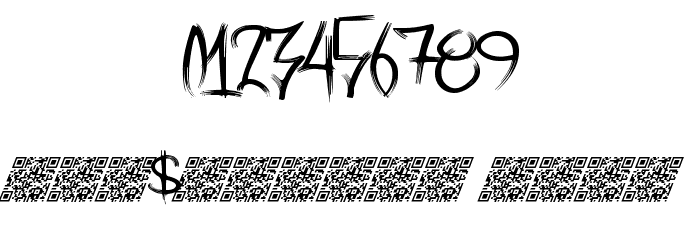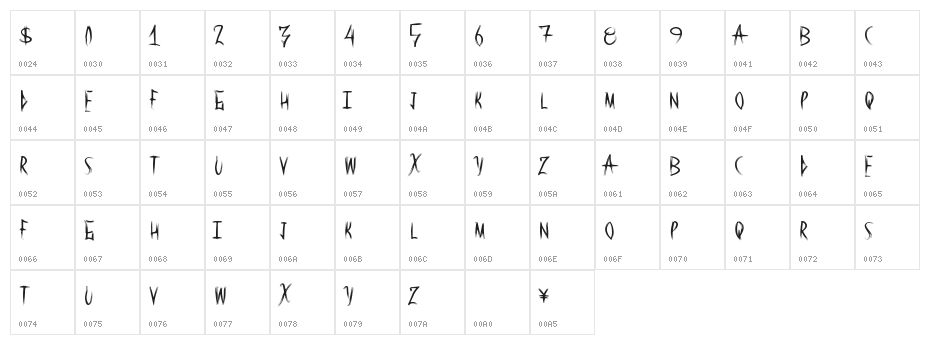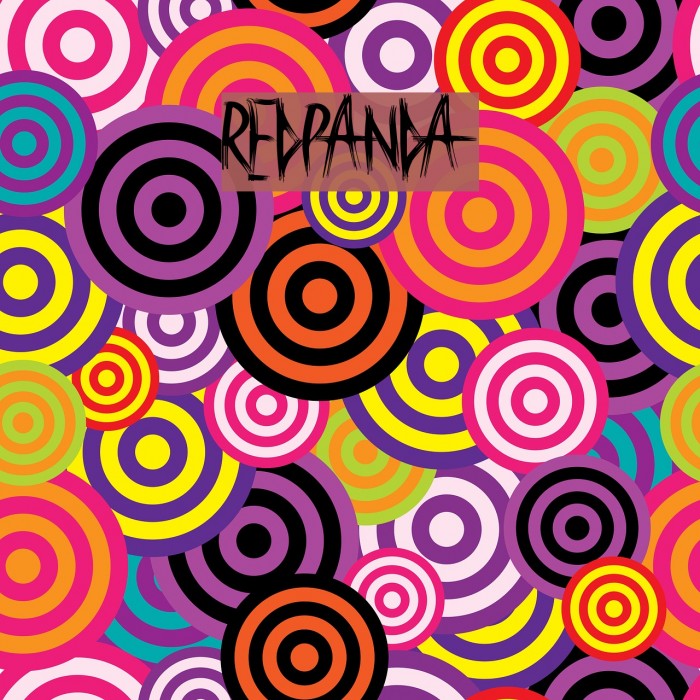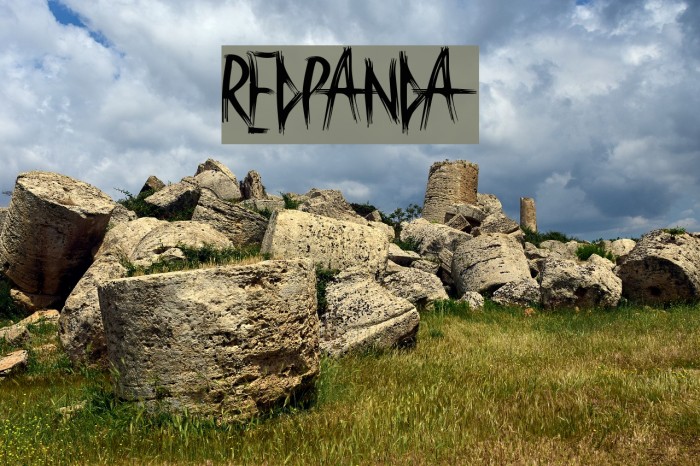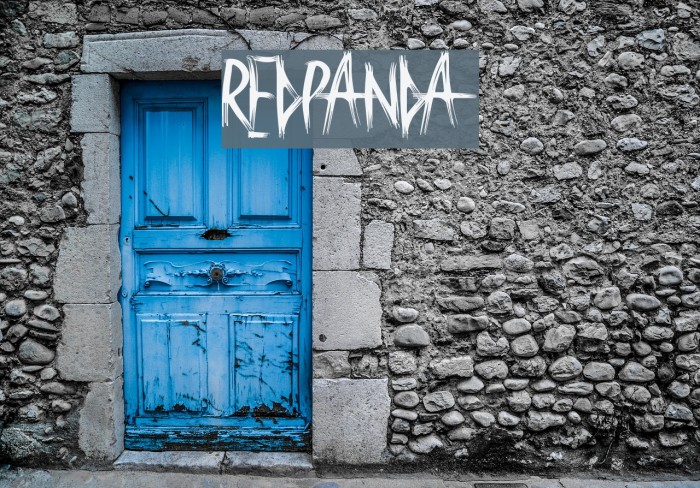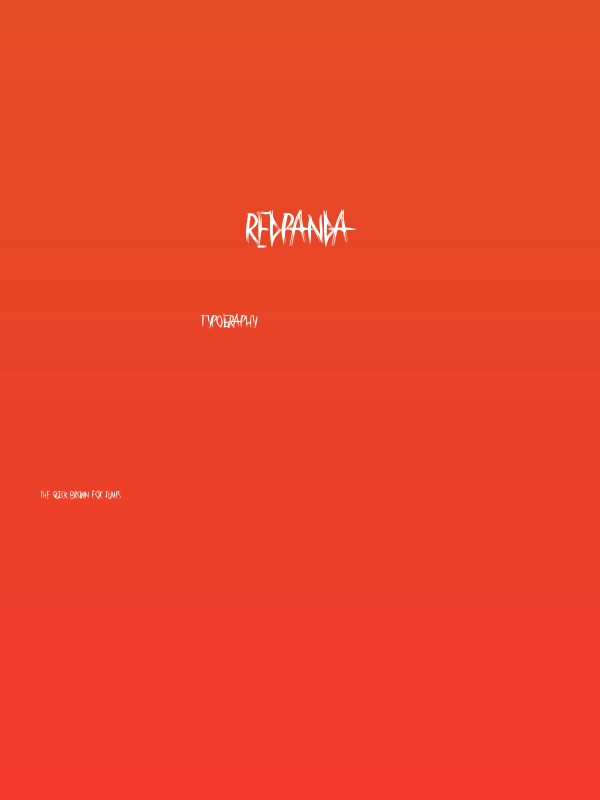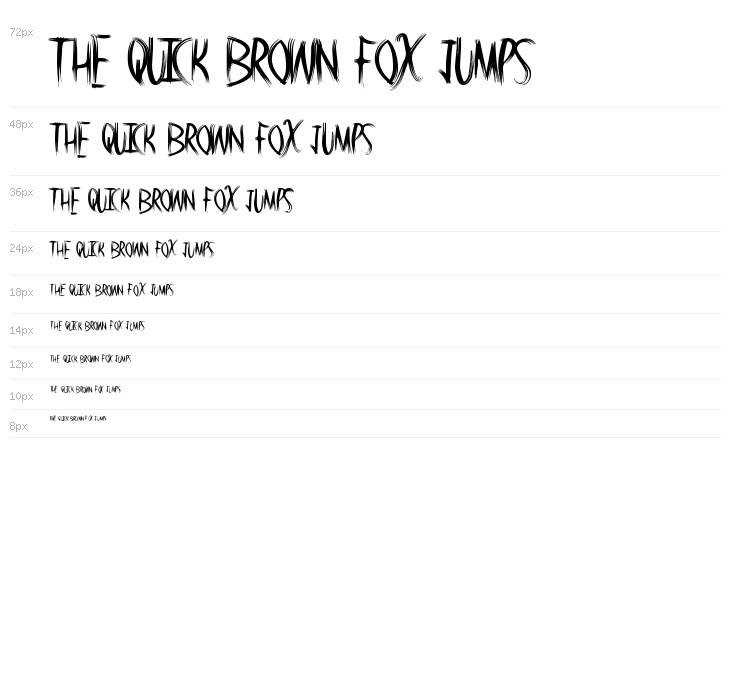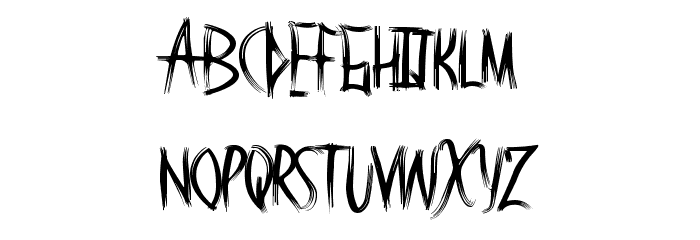
RedPanda Font
RedPanda Description
This font features a bold and dynamic brushstroke style, characterized by its sharp, jagged edges and irregular letterforms. The strokes are uneven, giving it a raw, energetic feel, reminiscent of graffiti or street art. The uppercase and lowercase letters maintain a consistent style, with a sense of movement and spontaneity. The numbers and special characters follow the same aesthetic, ensuring a cohesive look across all elements. This font is designed to stand out, making a strong visual impact with its unique and edgy appearance.
| Proposed Projects | Ideal for projects requiring a bold, artistic touch such as posters, album covers, streetwear branding, or any design needing a dynamic and edgy look. |